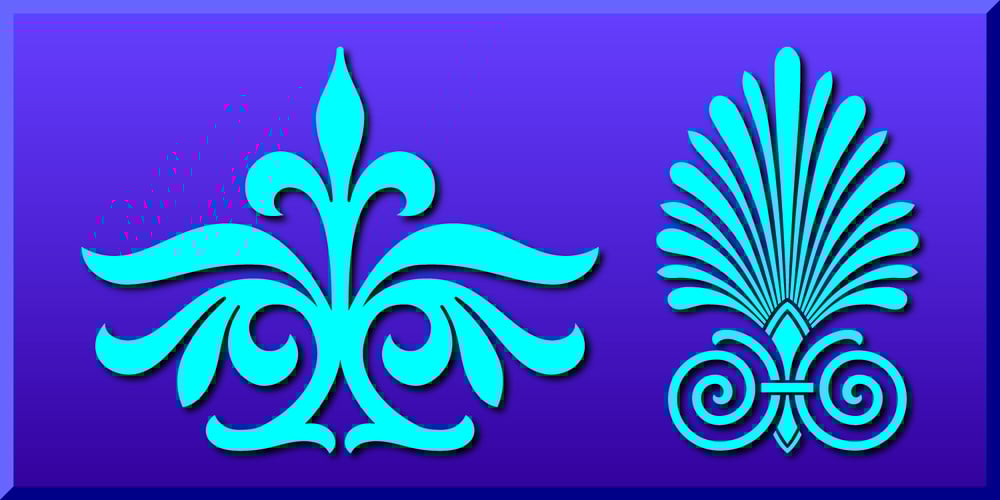
Magnificent Ornaments
Magnificent Ornaments font
Magnificent Ornaments Font Family was designed by Gerald Gallo and published by Gerald Gallo. Magnificent Ornaments contains 1 styles and family package options. Magnificent Ornaments was inspired by the ornamental styles produced during the Victorian era. There is an assortment of 47 ornaments all located under the character keys.